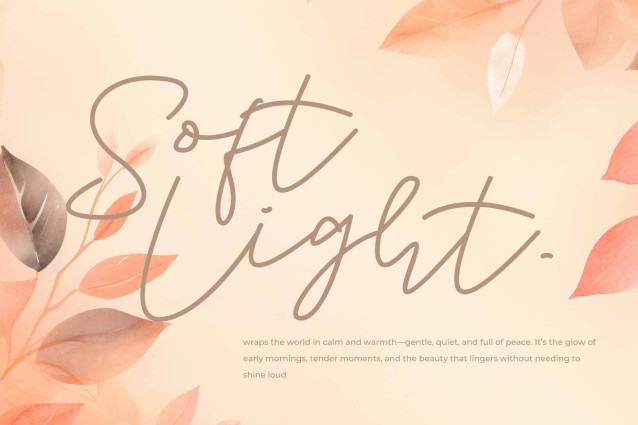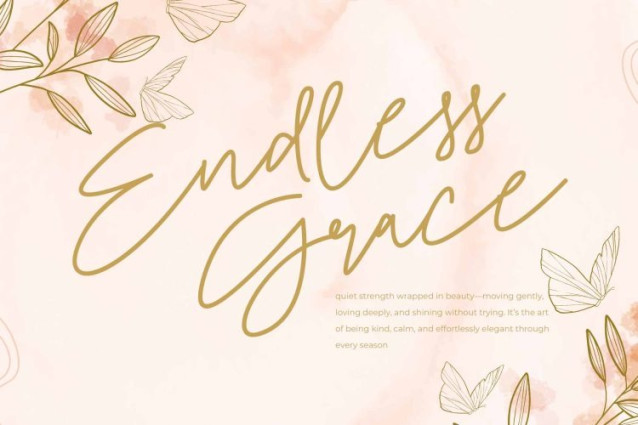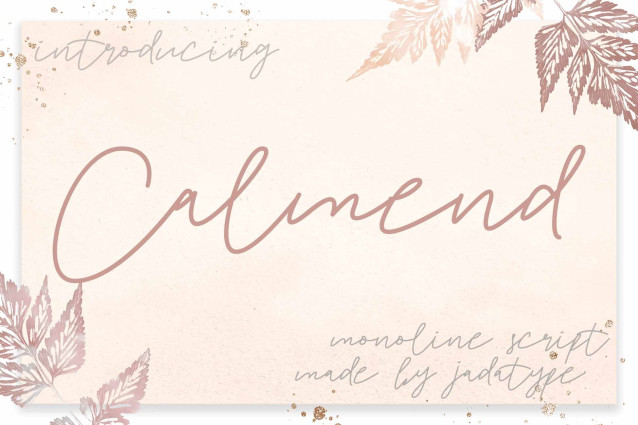
Calmend Monoline Font
Calmend Monoline Font is a font with a stylish script monoline. suitable for photography, social media, music cover, branding, products, handwritten, and so on. contains standard English letters, numbers, punctuation, and several accents that support multilingualism.